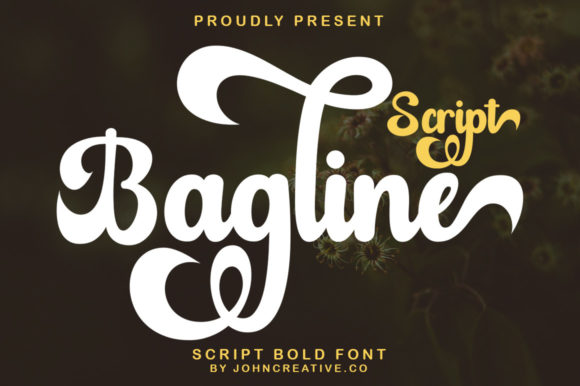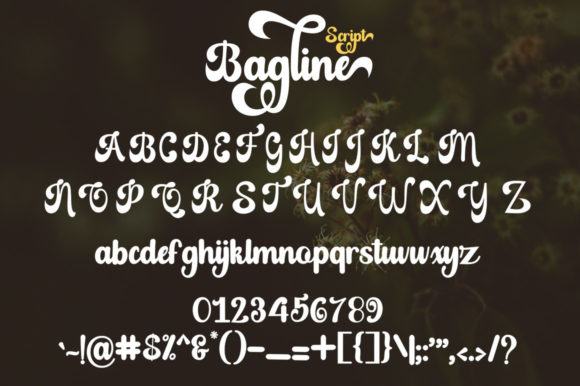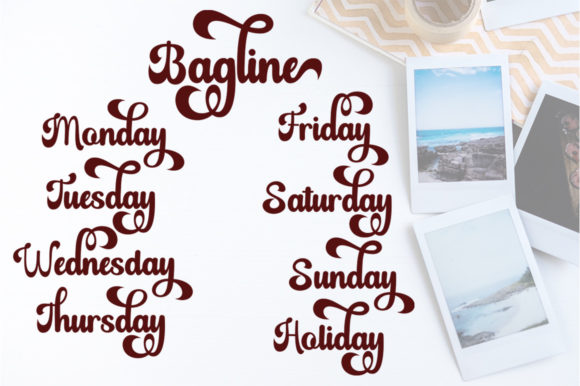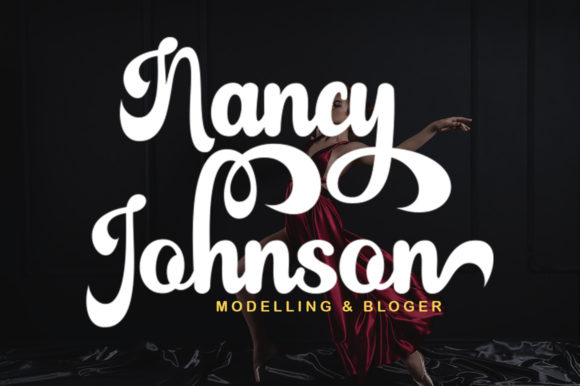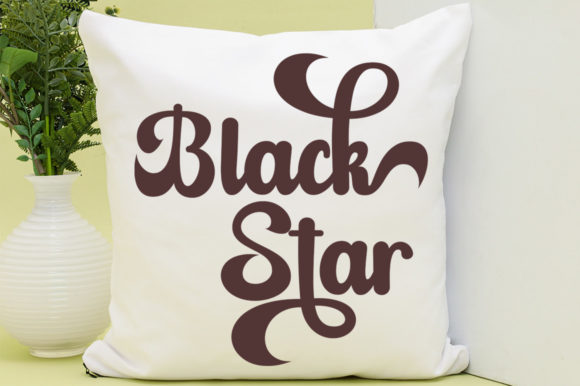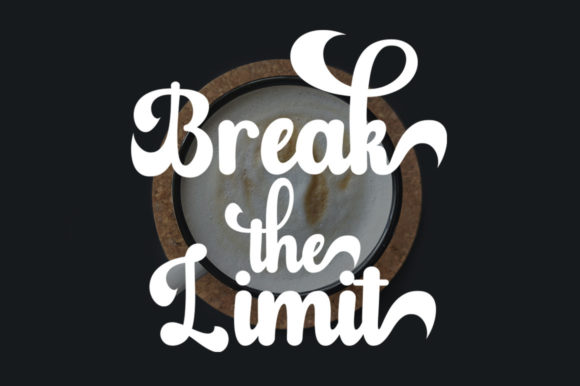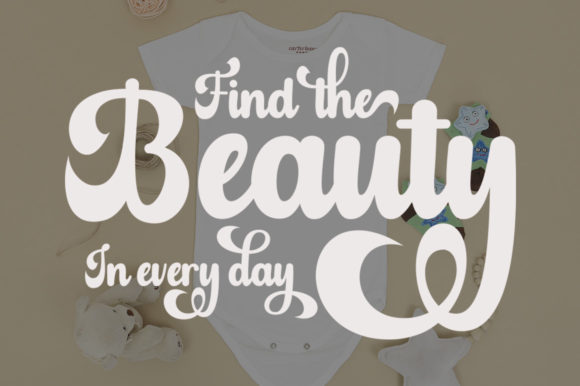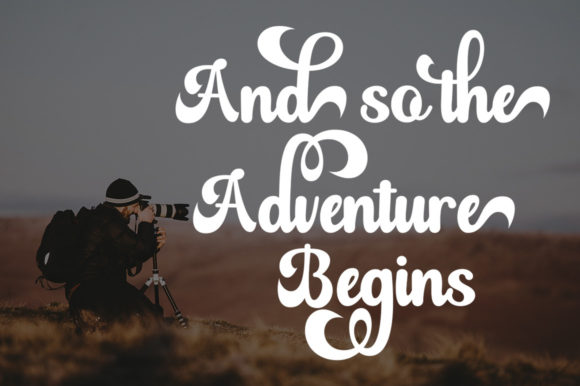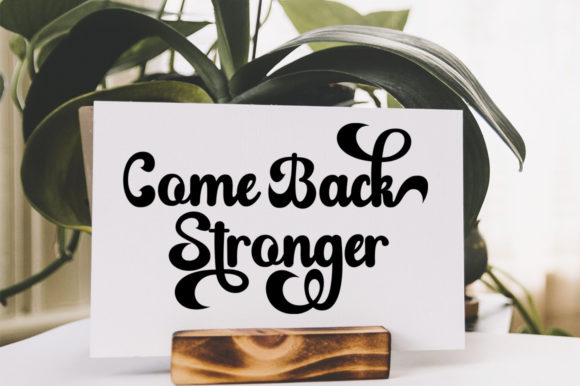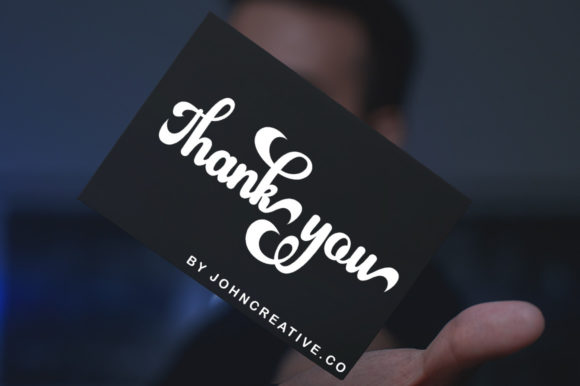
Bagline Script Font
About Bagline Script Font
“Bagline Script” isn’t just a font—it’s a retro-styled and sophisticated handwritten typeface that exudes confidence, authenticity, and charm. With its timeless appeal and elegant design, “Bagline Script” is the perfect choice for delivering any message with style and panache.
Crafted with attention to detail, this font captures the essence of retro aesthetics while maintaining a modern flair. Its handwritten style adds a touch of personality and warmth, making it ideal for a wide range of crafting ideas, including cards, branding, labels, and much more.
Whether you’re crafting heartfelt messages, developing brand identities, or designing product packaging, “Bagline Script” elevates your creations with its distinctive charm and sophistication. Its versatility ensures it complements various design styles and themes, adding a touch of vintage elegance to every project it graces.
Moreover, “Bagline Script” is PUA encoded, granting easy access to all glyphs and swashes. This feature enhances its usability, allowing designers to effortlessly customize and embellish their designs, adding decorative elements and flourishes to enhance their visual appeal.
In summary, “Bagline Script” is more than just a font—it’s a versatile and stylish tool that empowers designers to create captivating and memorable designs with ease. Embrace its retro sophistication and watch as it elevates your crafting ideas to new heights of creativity and charm.